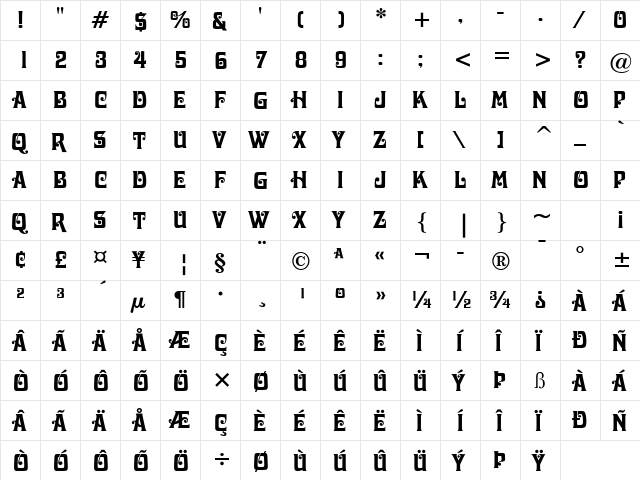
Davis Normal
Design Context for Davis Typeface
Davis is a composed and adaptable typeface that performs quietly and consistently across a wide range of design contexts.